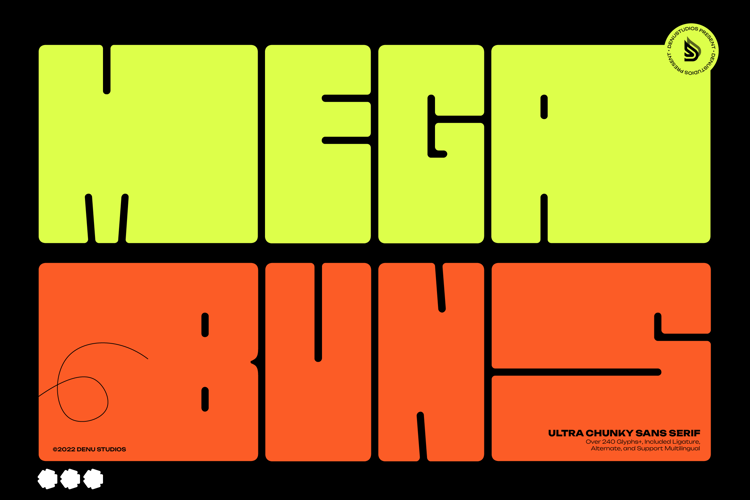
Mega Buns Font
Mega Buns | Ultra Chunky Sans product packaging, mugs, quotes, posters, shopping bags, t-shirts, book covers, name card, invitation cards, greeting cards, label, photography, watermark, special events, and all your other lovely projects that need a Sans Serif taste.